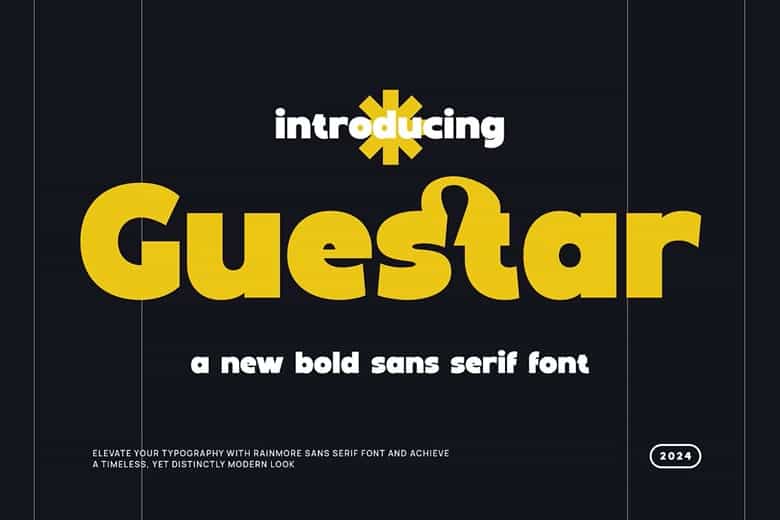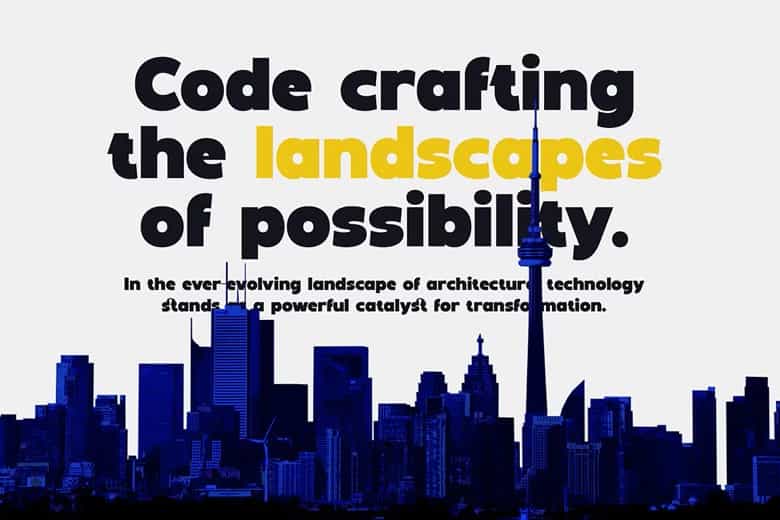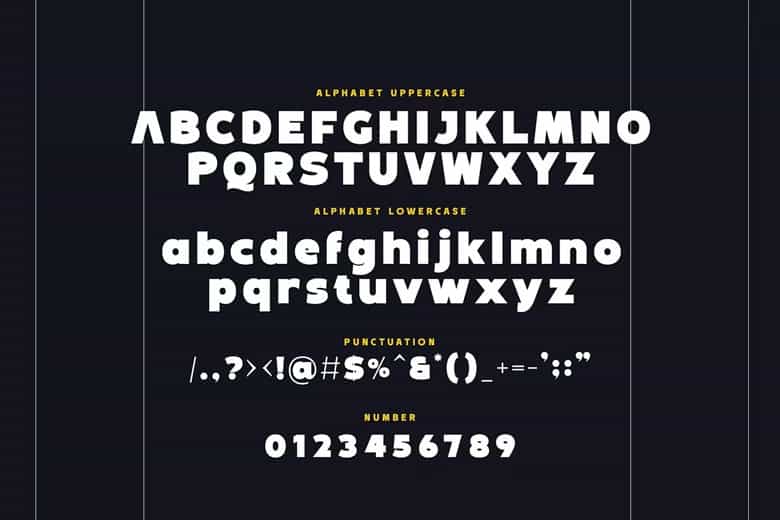
Guestar is a new expanded bold sans serif font made for logos, branding, headers/headlines, for game or sports/gym purposes. Guestar Font helps to make an individual and memorable impression of the overall design. Raise the level of your branding design projects with such a company as Guestar.